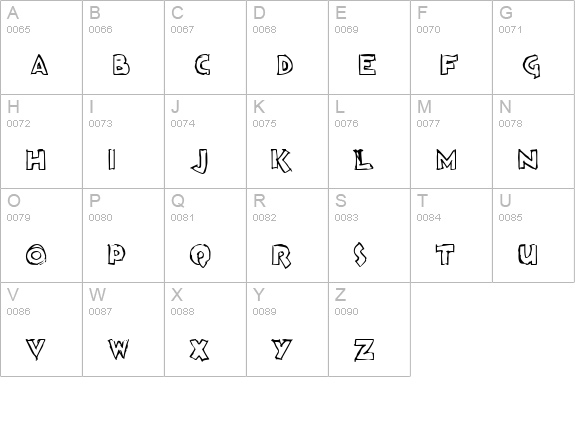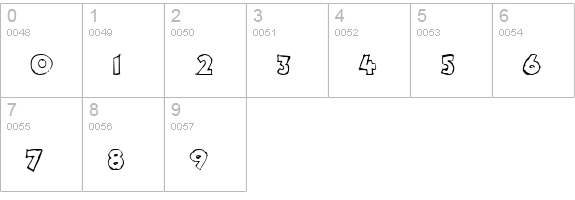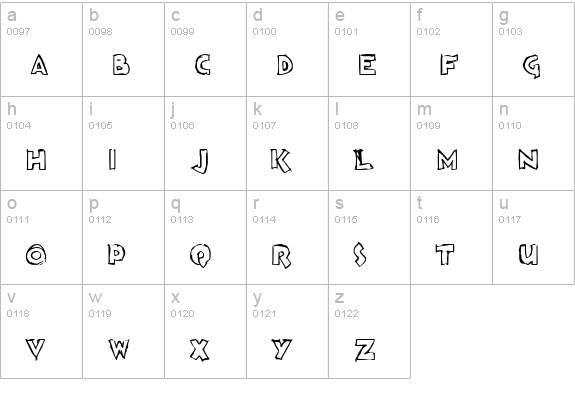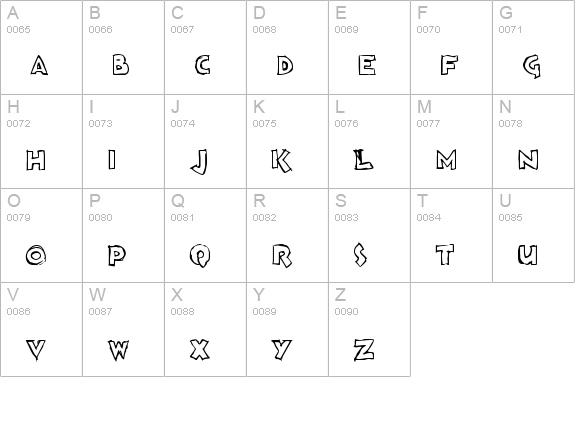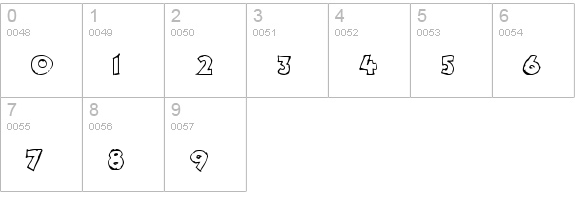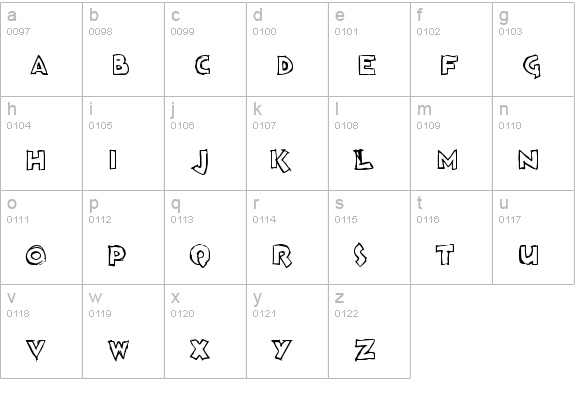
Loosh Font Details
Introducing the captivating Loosh font, a modern and stylish typeface that is sure to make your design projects stand out. With its unique blend of elegance and versatility, Loosh is perfect for a wide range of applications, from branding to social media graphics to website design. The best part? Loosh is available for free download at FontsMarket.com, making it easily accessible for all designers looking to add a touch of sophistication to their work. Embodying a sleek and contemporary aesthetic, this font is bound to elevate your creations and leave a lasting impression on your audience. Don't miss out on the opportunity to enhance your design projects with the effortlessly chic Loosh font. Download it today and let your creativity soar to new heights!